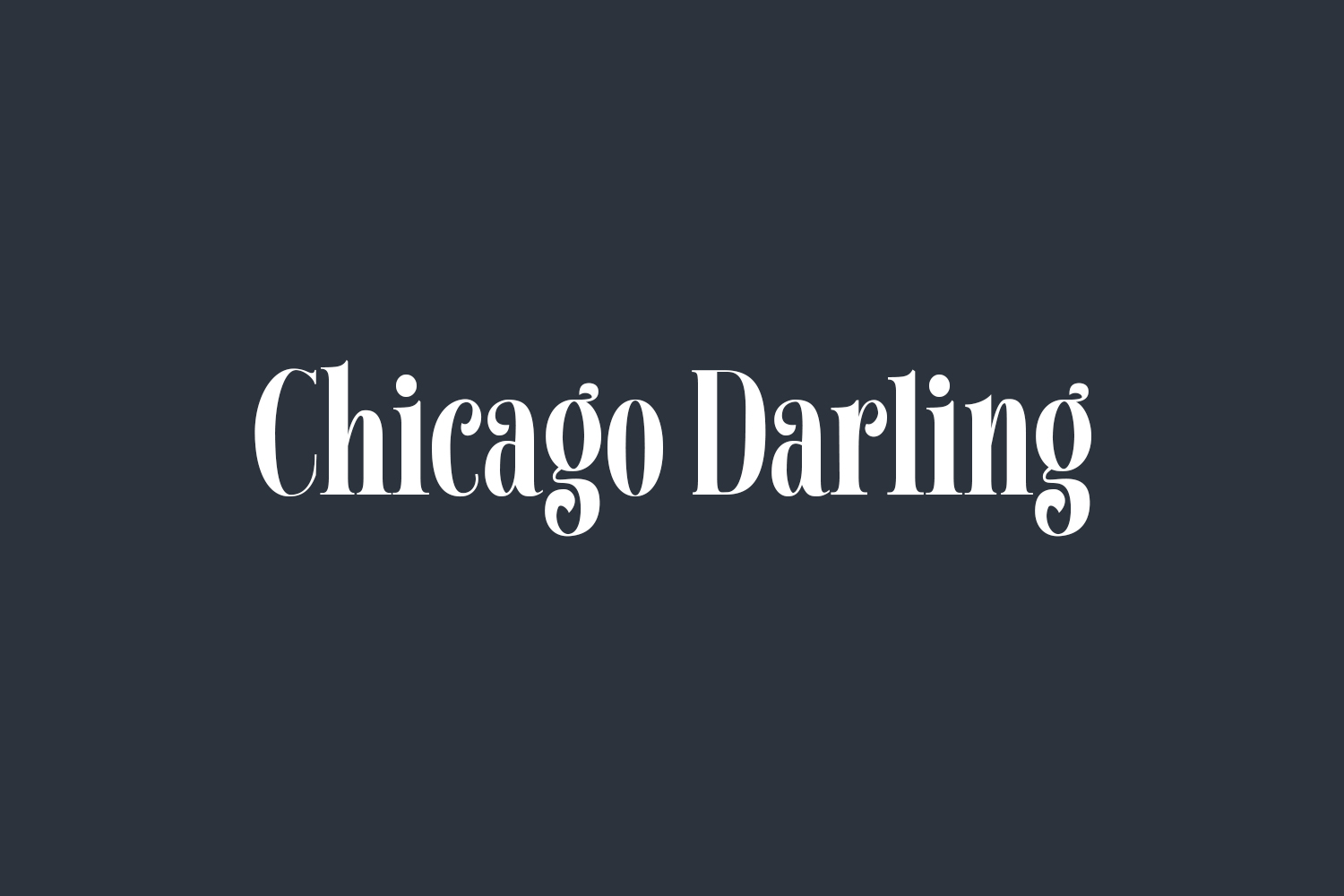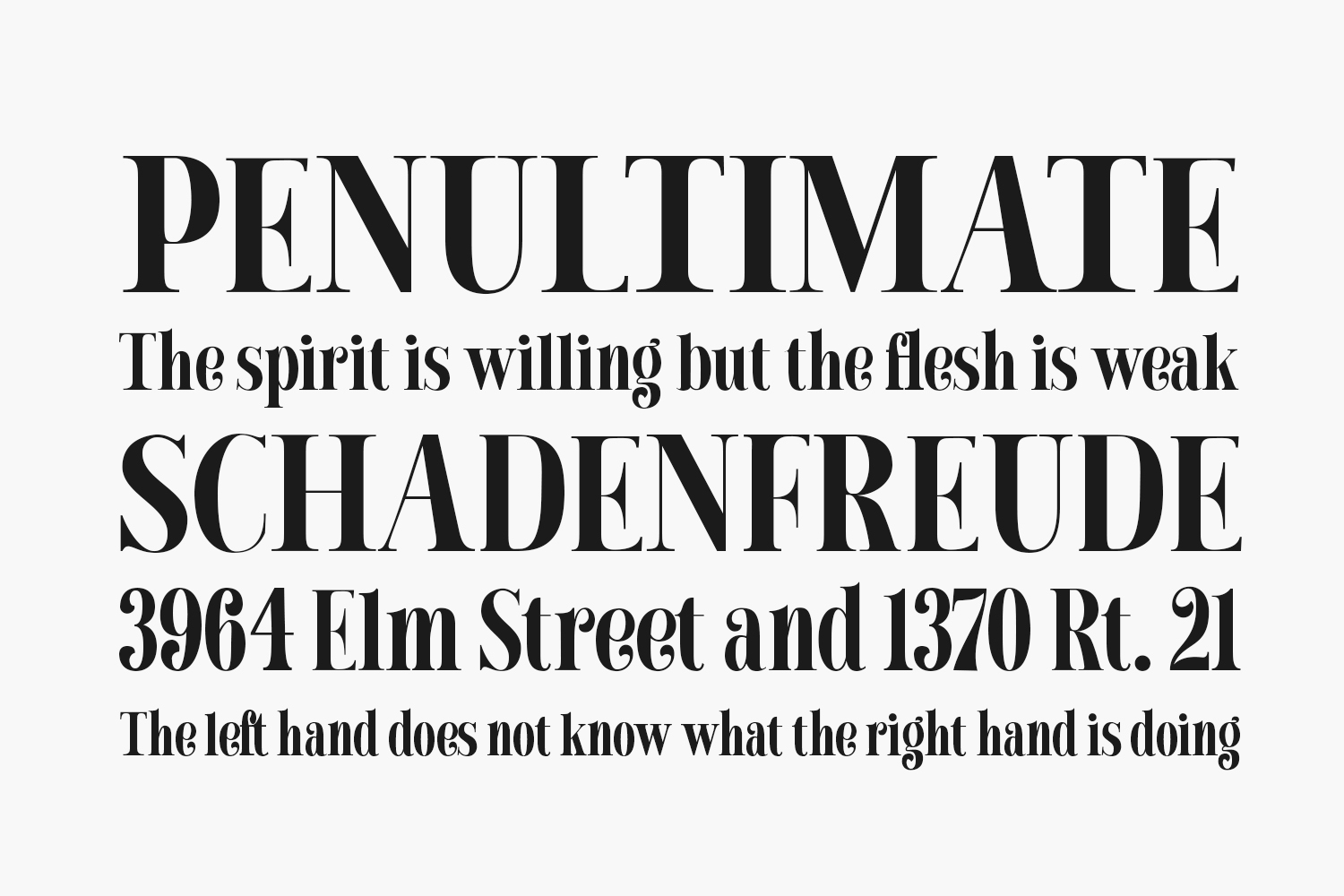
Chicago Darling Free Font is an elegant and trendy serif font. Chicago Darling Free Font is free for personal use only. Please purchase the full version for commercial use.
Designed by Gatype